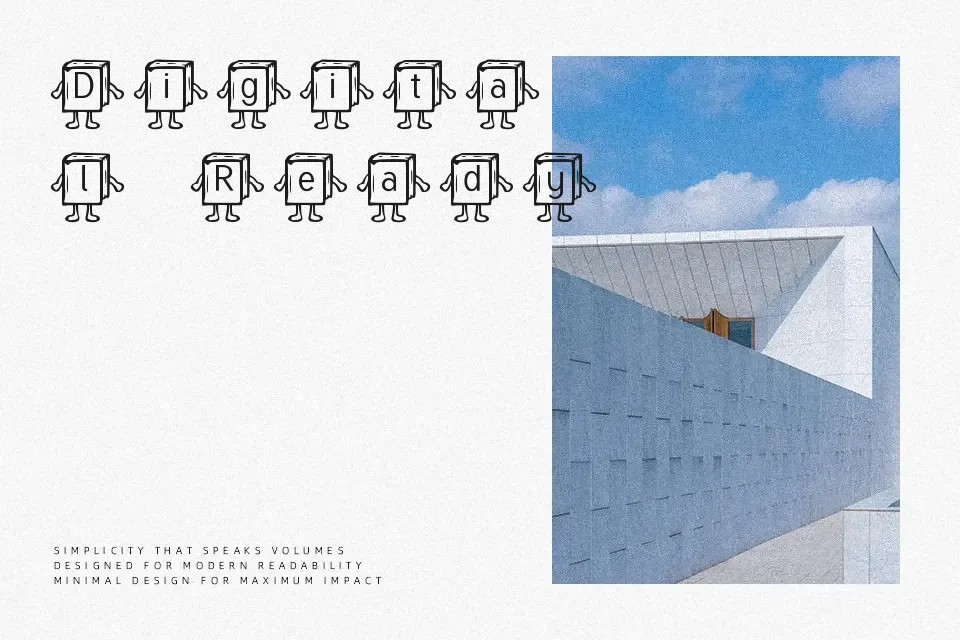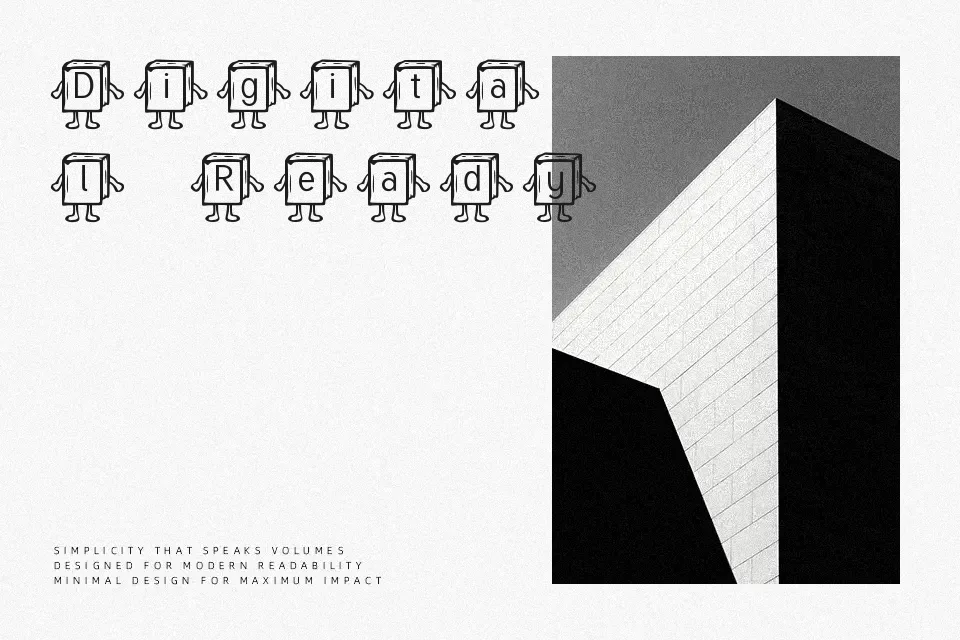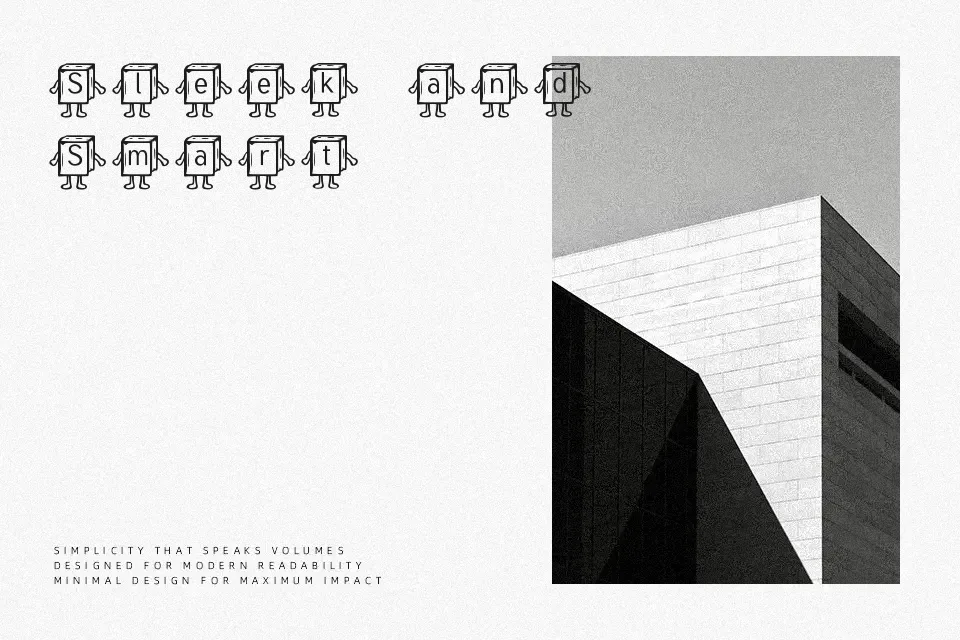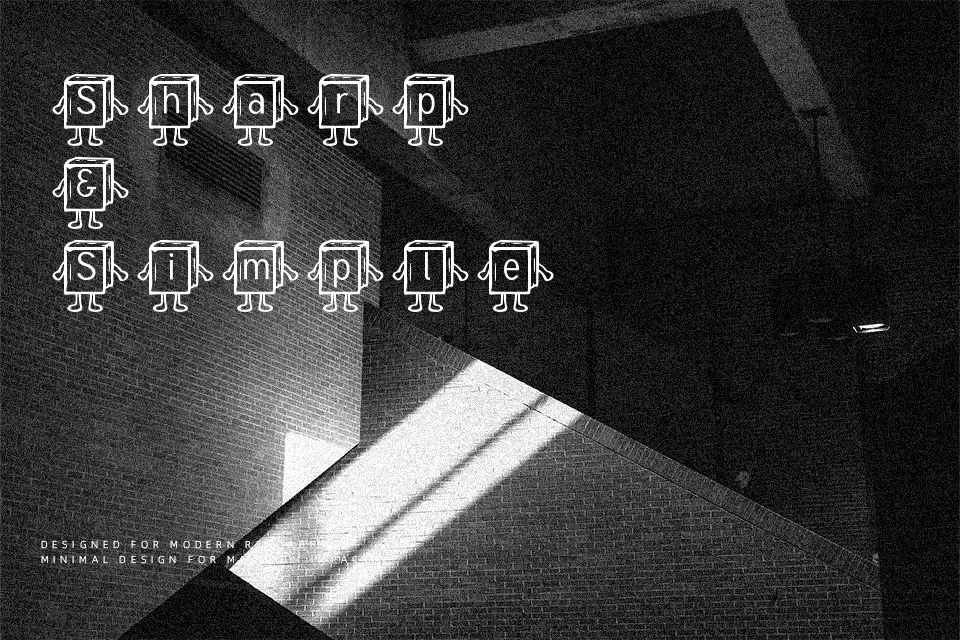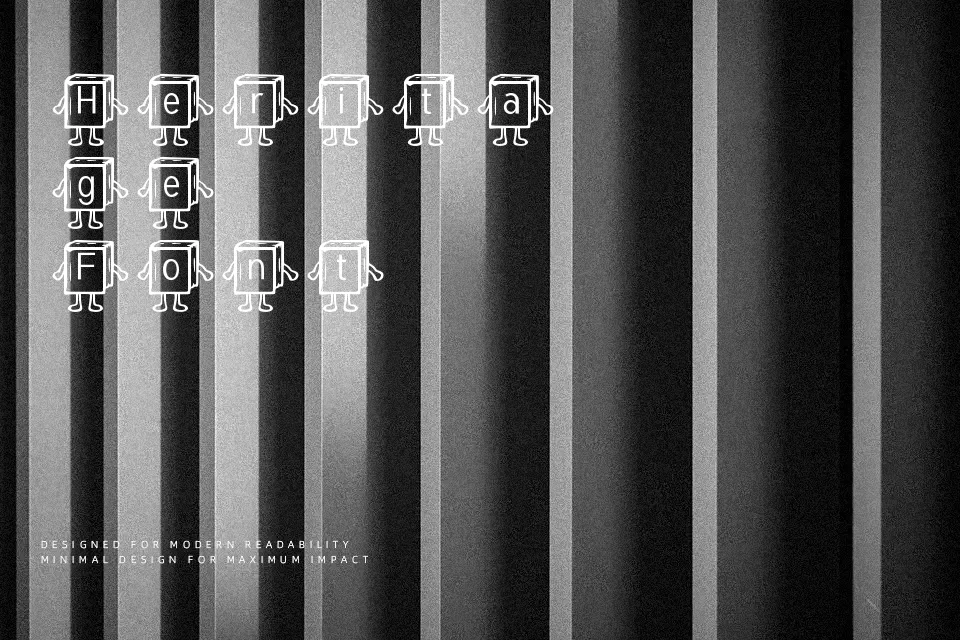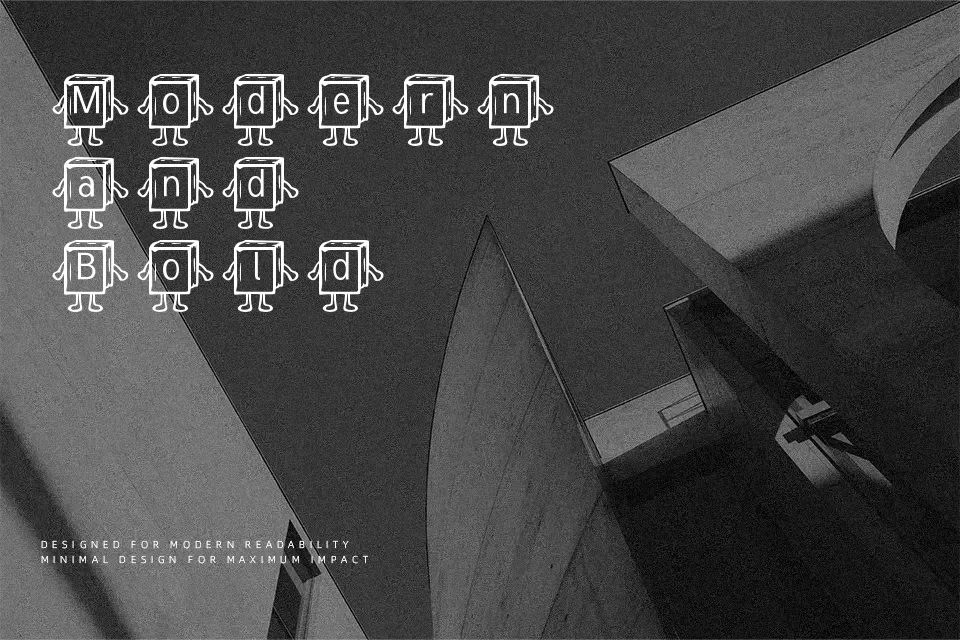
Samys Bookified Tuffy Font
Designed by Ret Samys
Samys Bookified Tuffy Font features sturdy sans serif letterforms distinguished by slightly curved stroke endings, generous internal proportions, and balanced horizontal spacing. The uppercase characters maintain consistent vertical weight, while lowercase glyphs incorporate open apertures that sustain clear legibility across display and sub-heading contexts. Its stable geometry functions effectively in short promotional lines and educational chapter headers. However, the subtle stylistic flourishes can create visual clutter in dense body paragraphs or compact mobile UI elements, where an unadorned workhorse grotesque remains preferable.
– book cover titles
– magazine subheadings
– educational poster headers
– clean brand packaging
– dense body paragraphs
– micro mobile interface copy
– legal fine print
– spreadsheet data tables
Perfect for editorial, headline, and packaging, with a clean and display style.